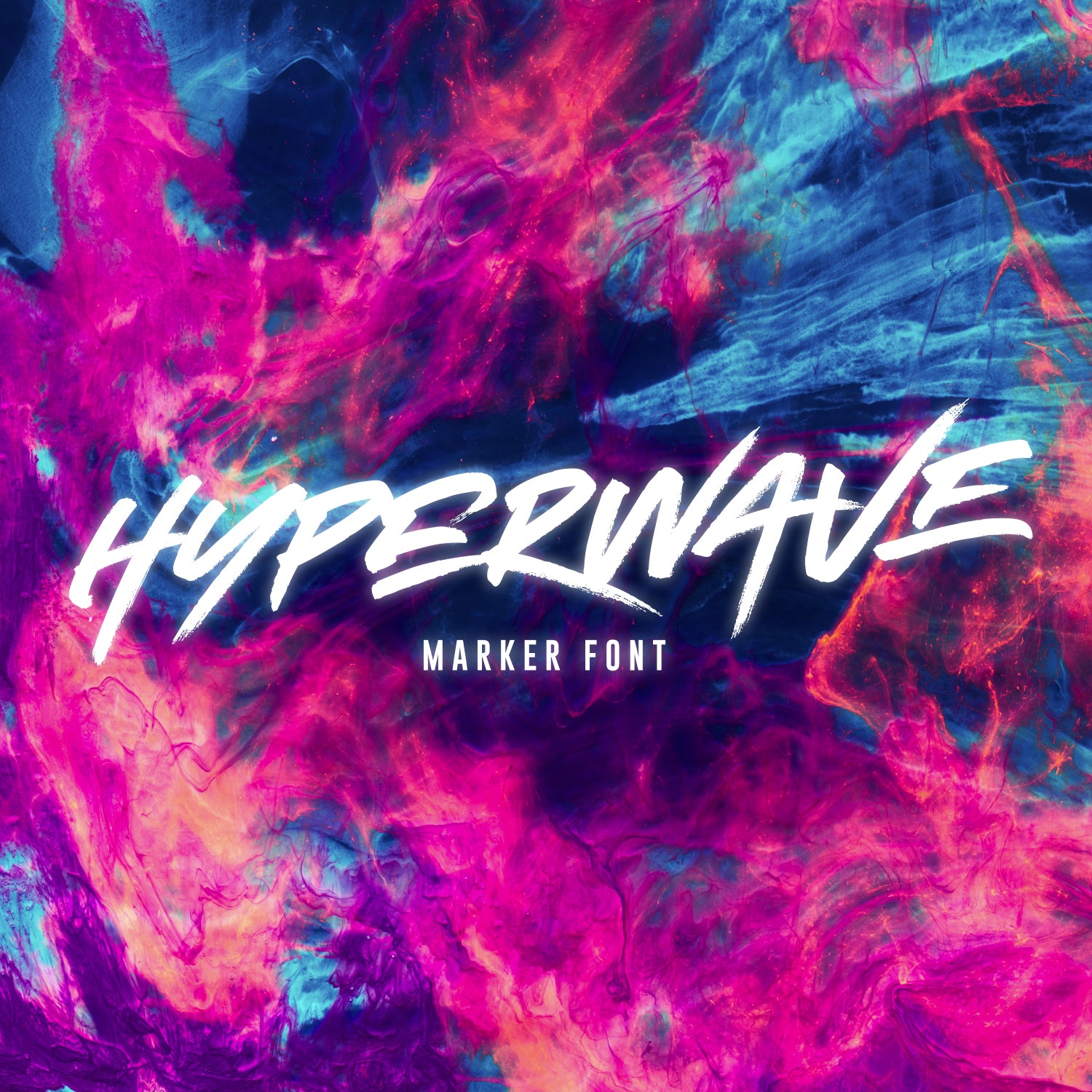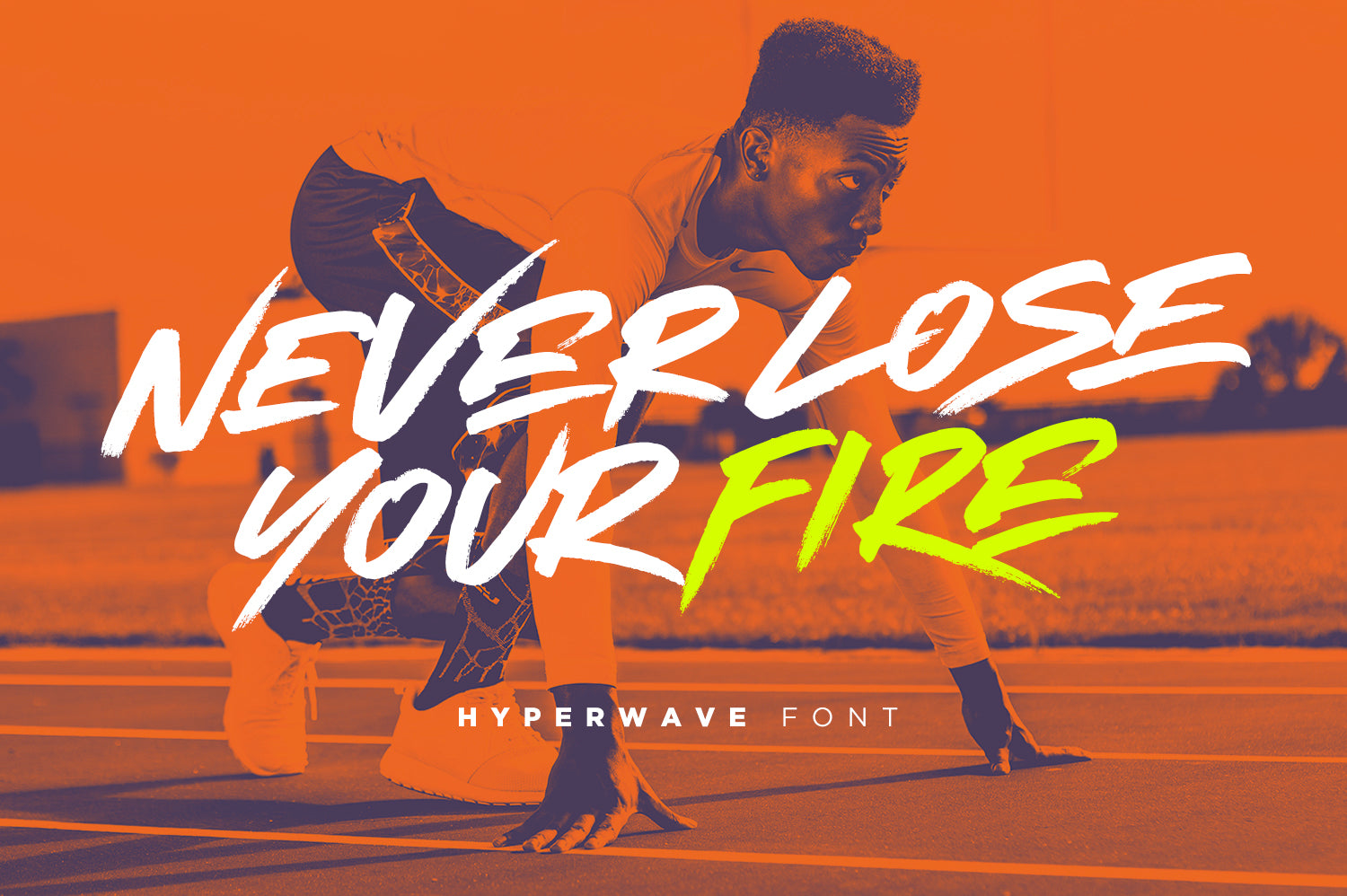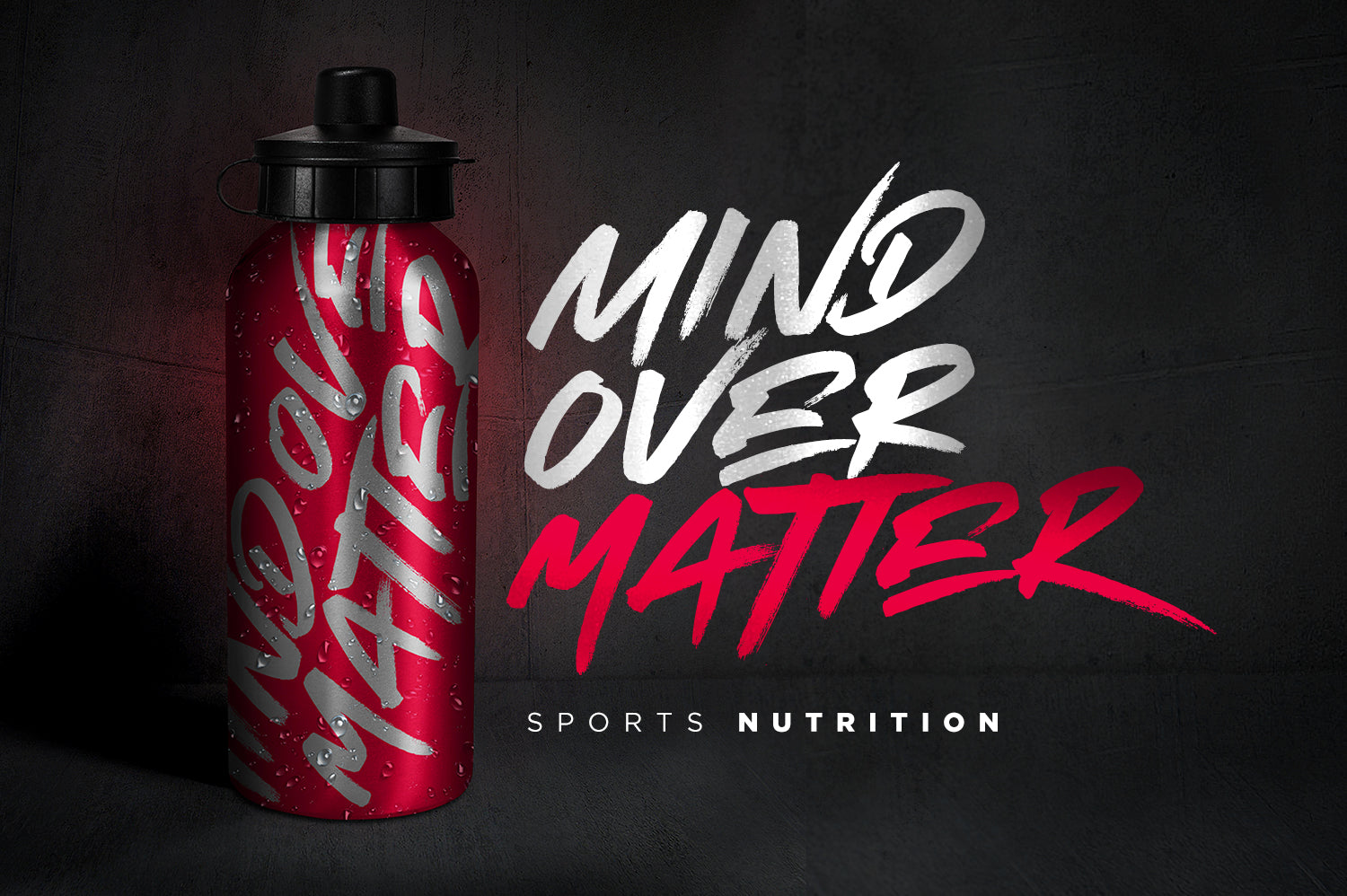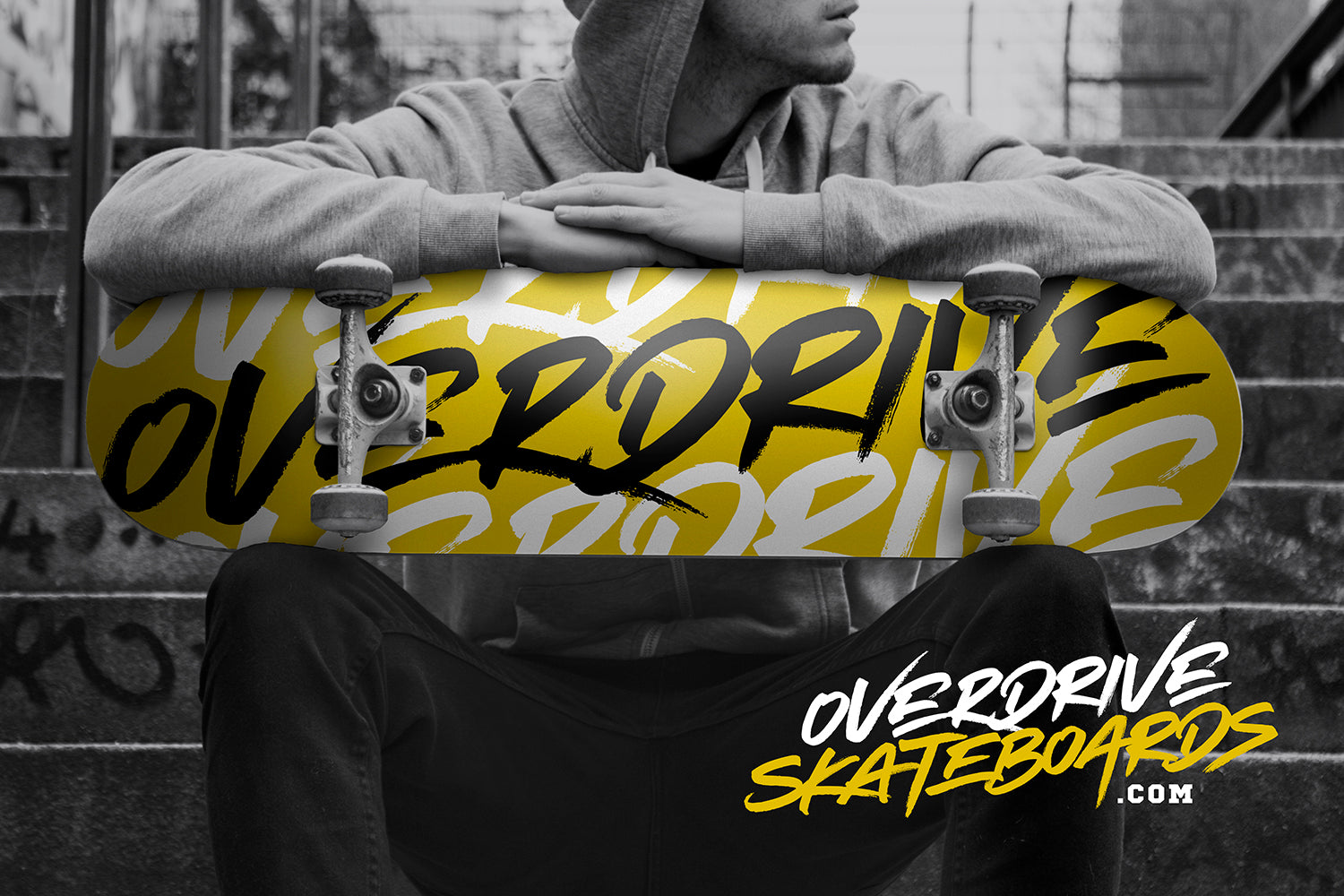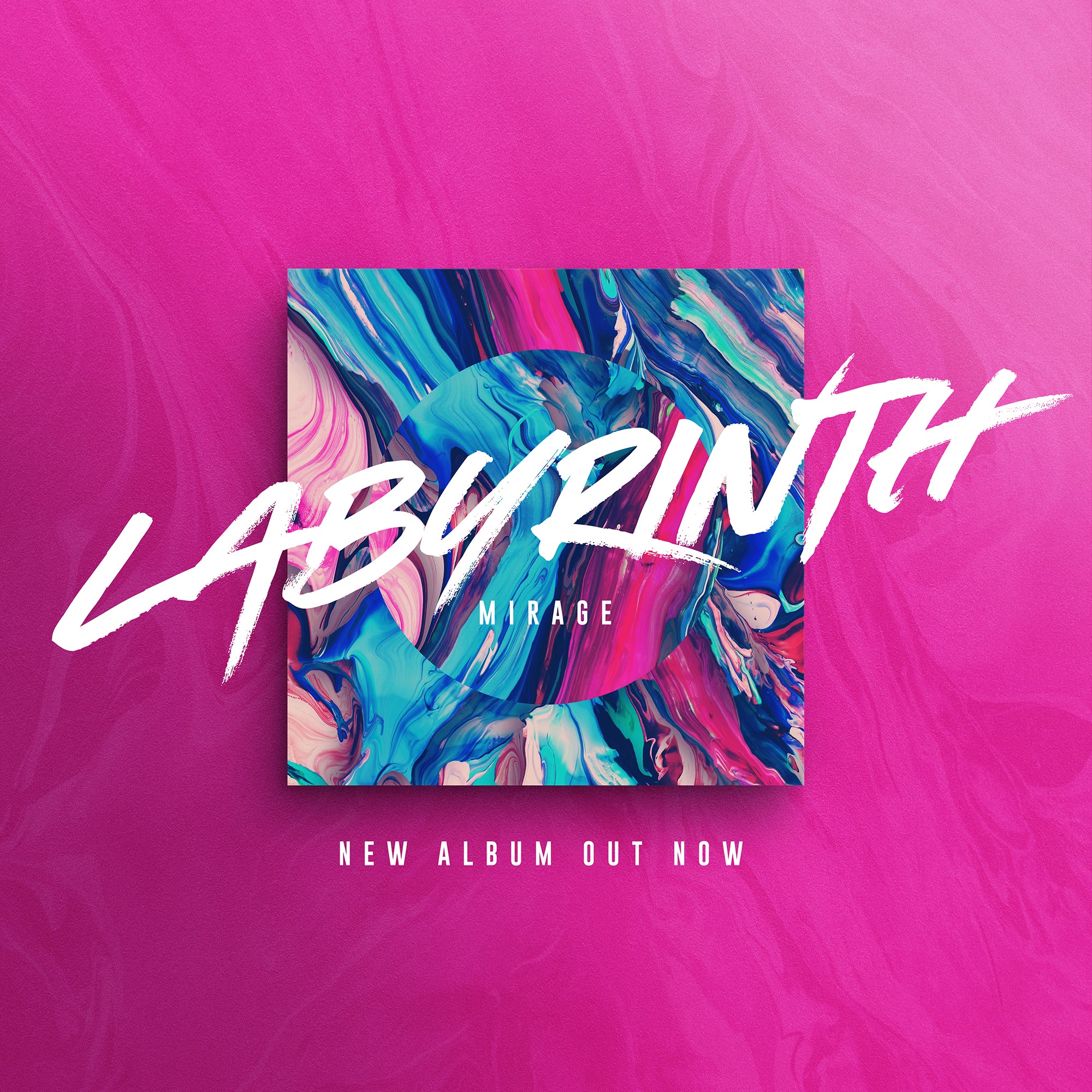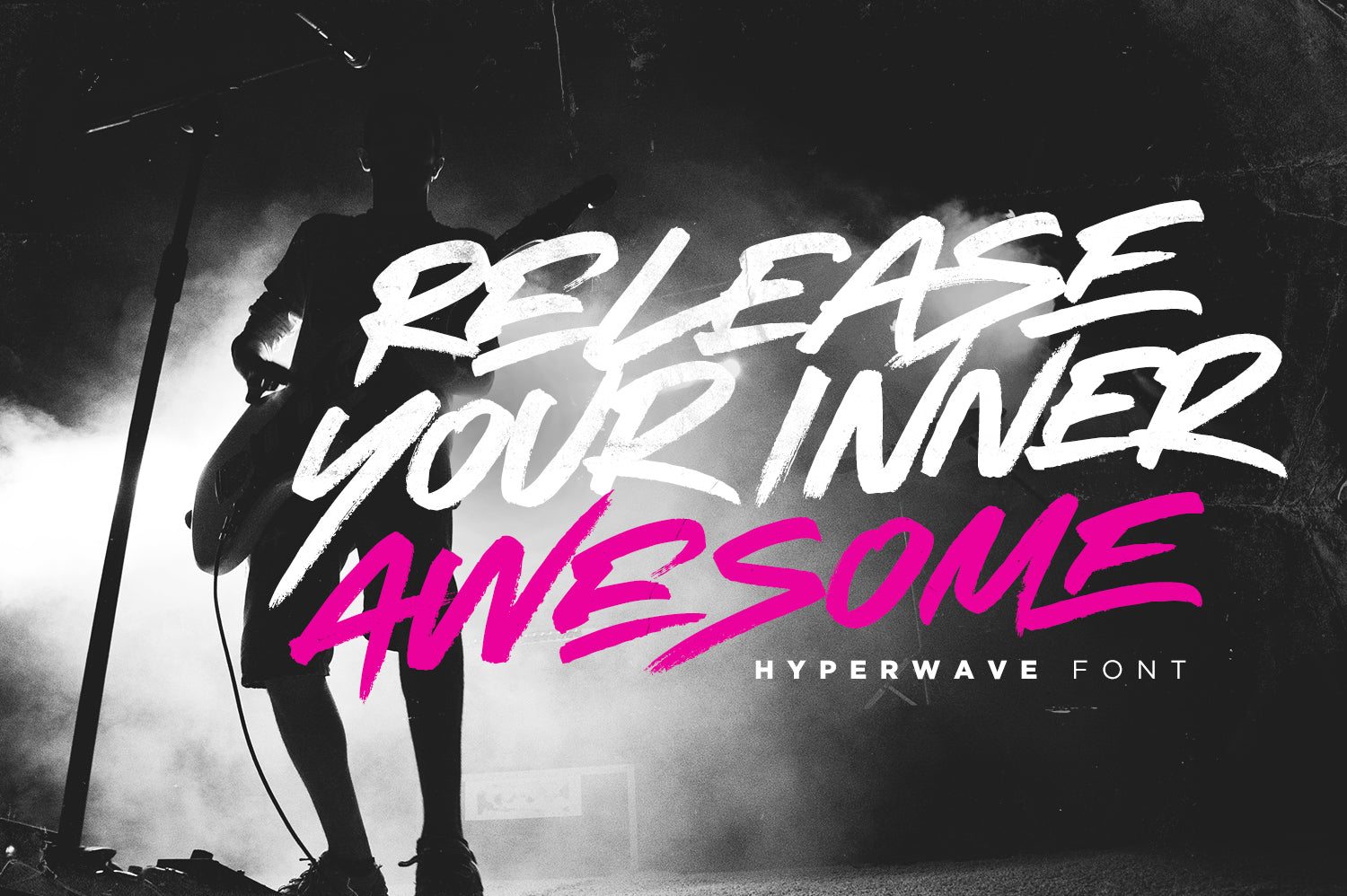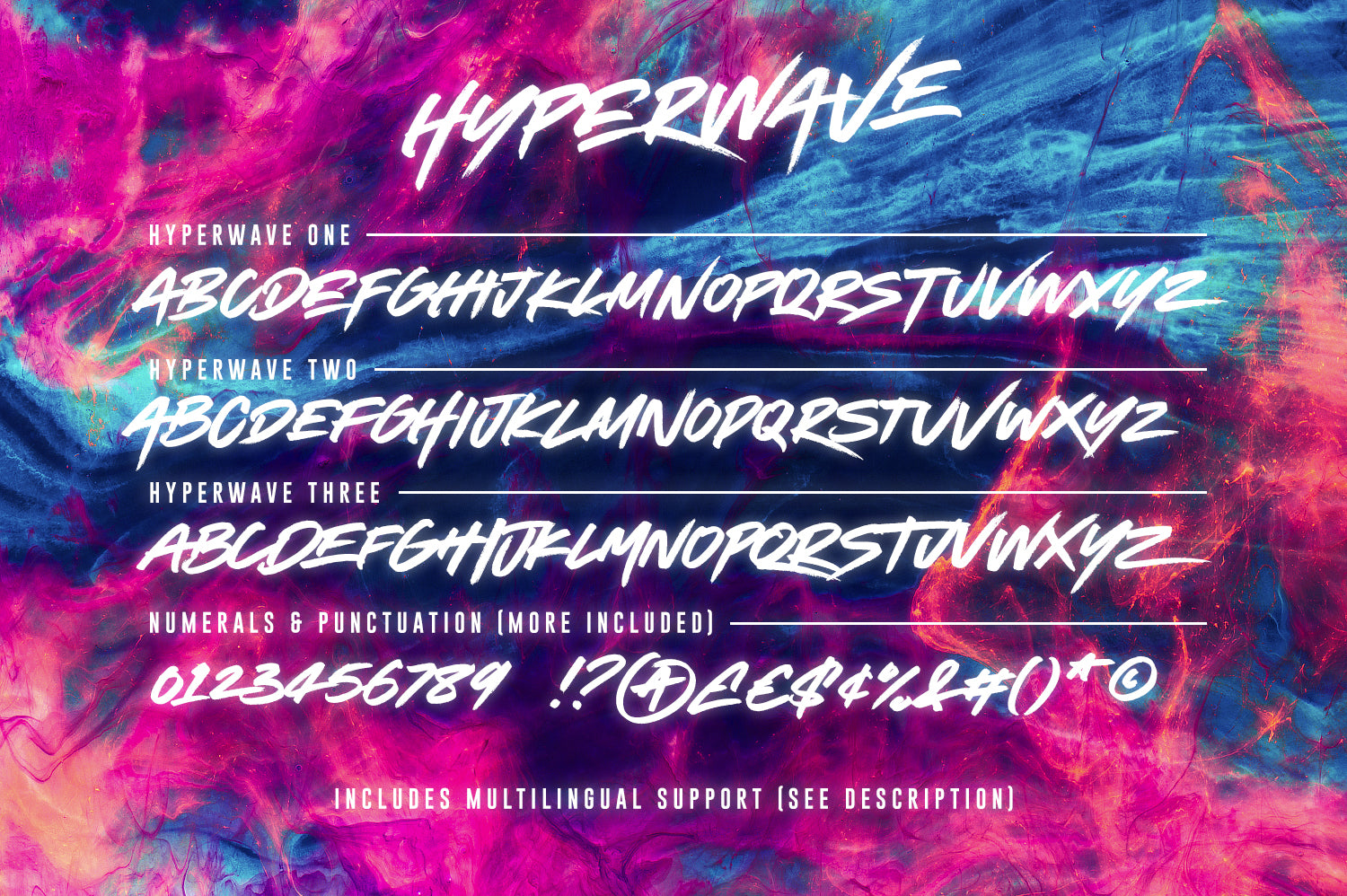
HYPERWAVE Marker Font
HYPERWAVE Marker Font is an energetic brush font set featuring three distinct versions of uppercase characters, each with unique fast brush strokes. The download includes three font files—Hyperwave One, Hyperwave Two, and Hyperwave Three—along with multilingual support for various languages.